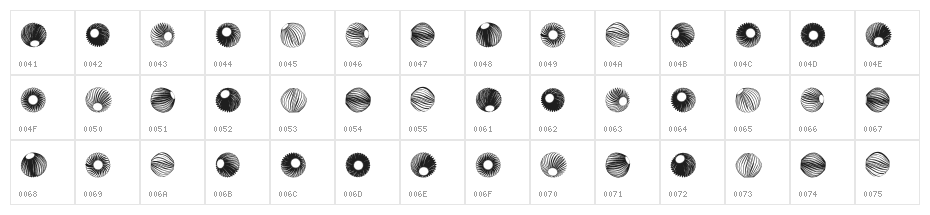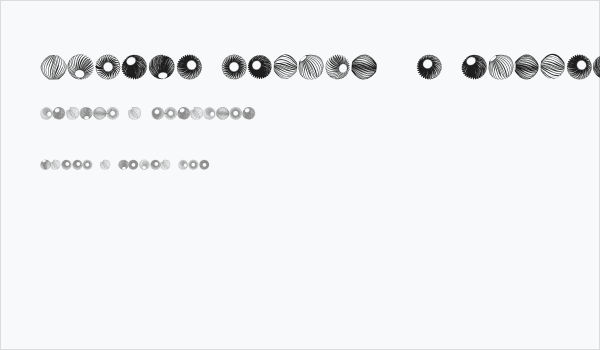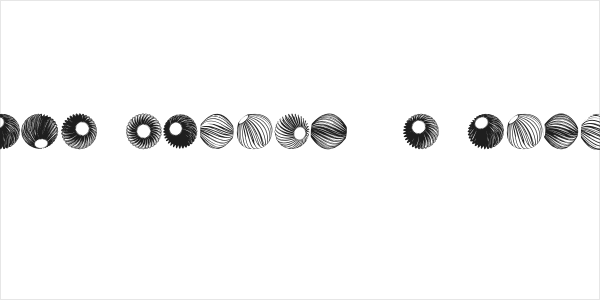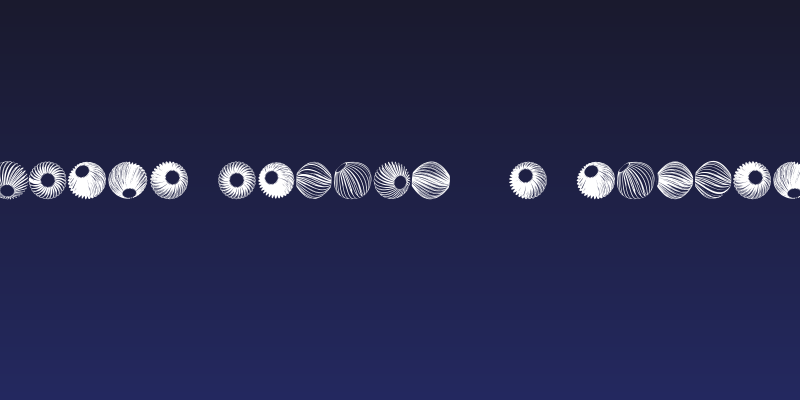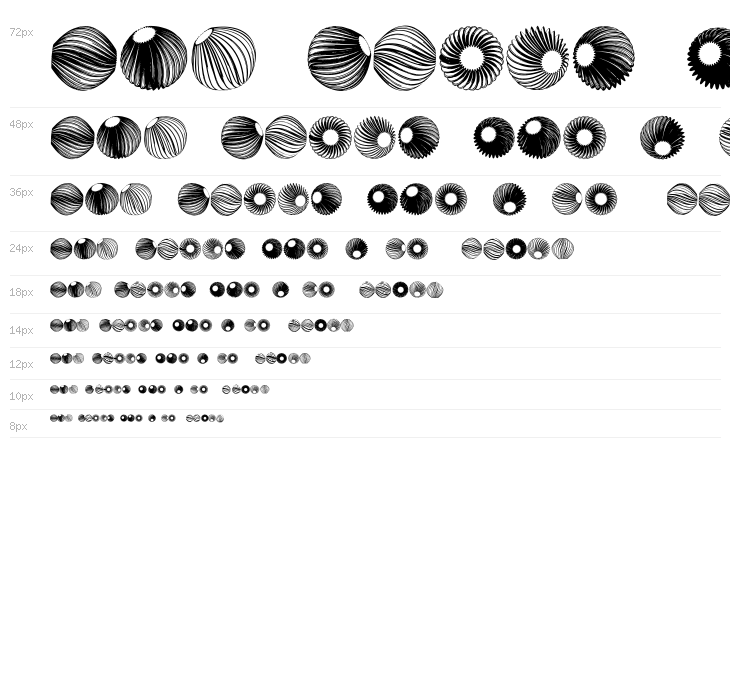
Spiral Object 3D Regular Font
Spiral Object 3D Regular Description
A highly decorative, abstract font composed of 3D spiral and spherical objects with varying line densities and patterns, creating a visually dynamic and textured effect for each character.
| Overall Style | Decorative, Abstract, Modern |
| Use Case | Logos, Headlines, Posters, Artistic projects |
| Proposed Projects | Posters, album covers, experimental branding, art installations, creative headers. |